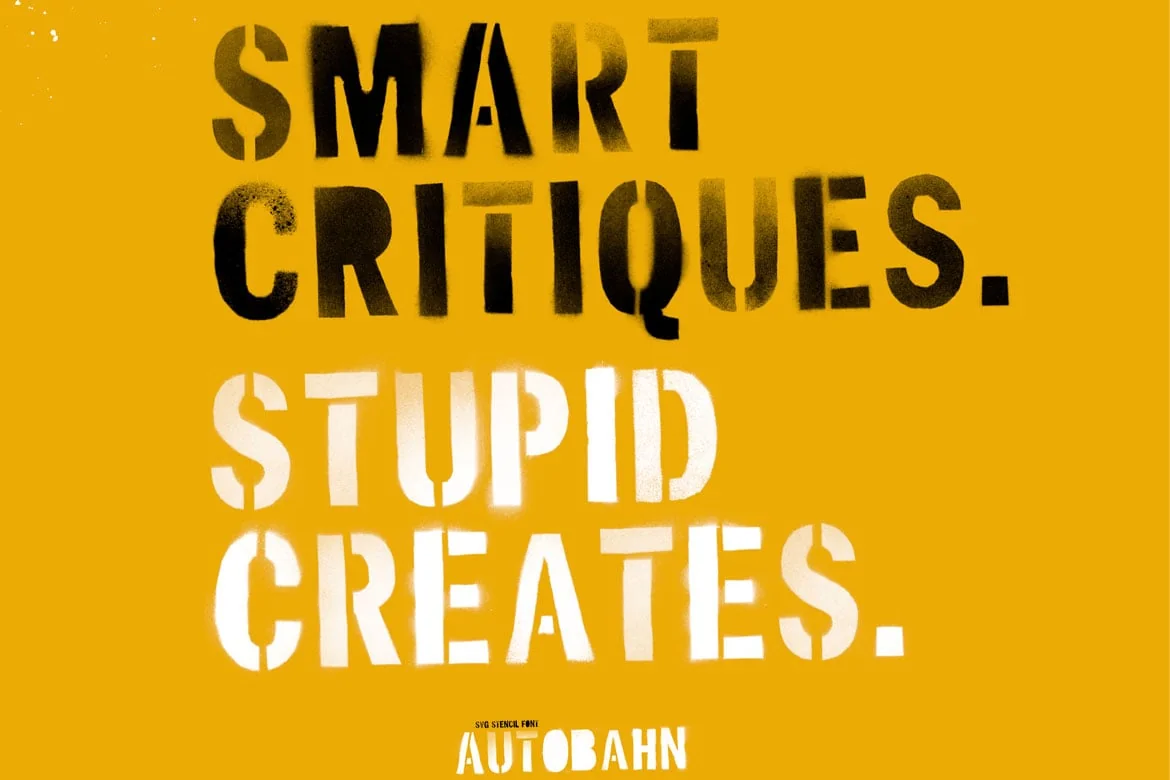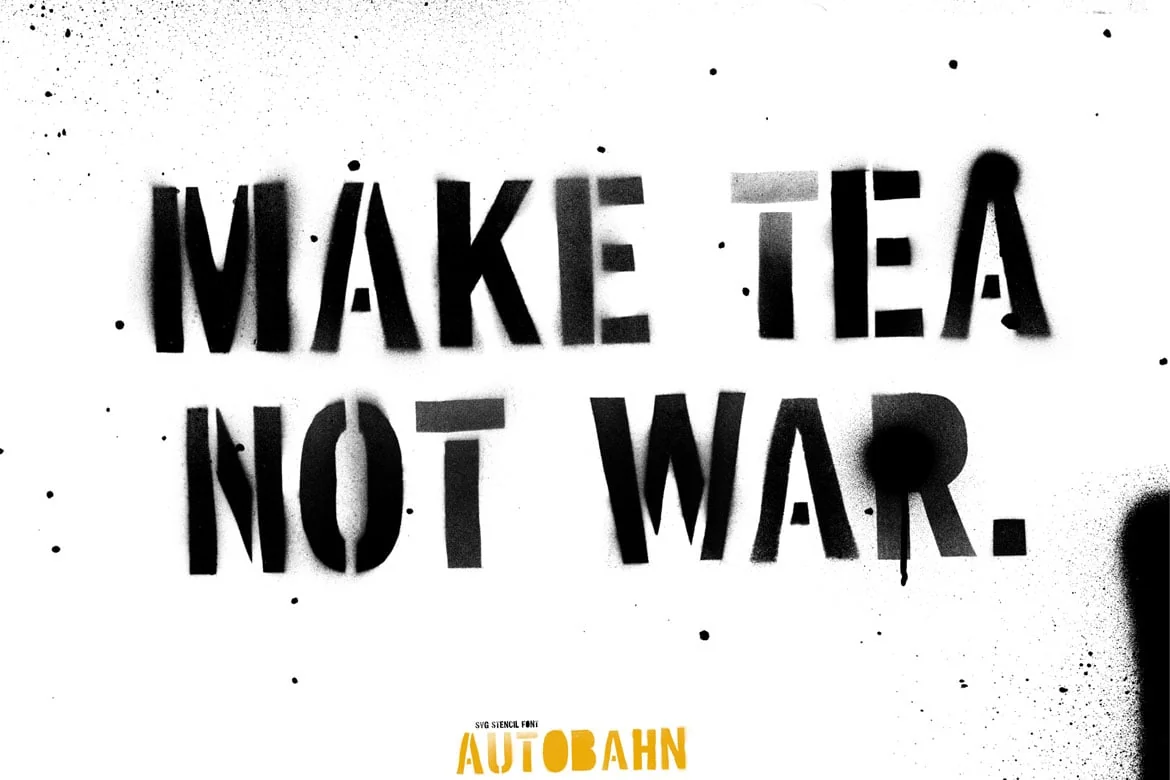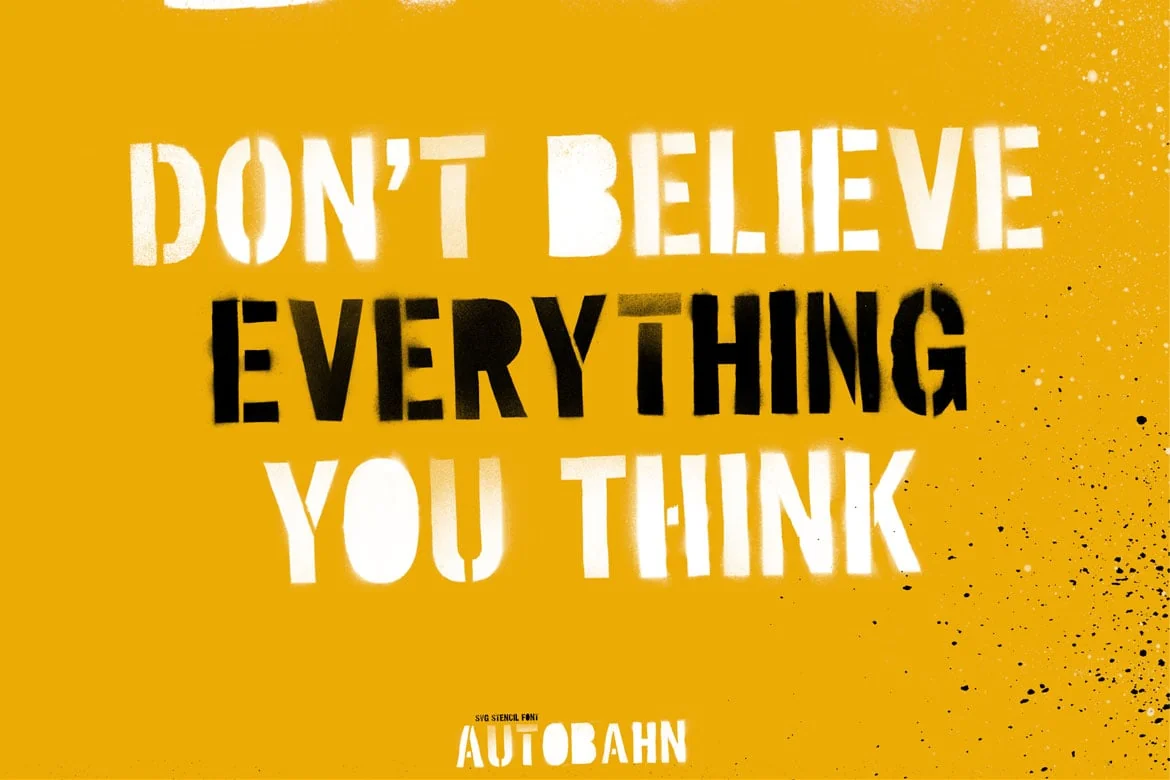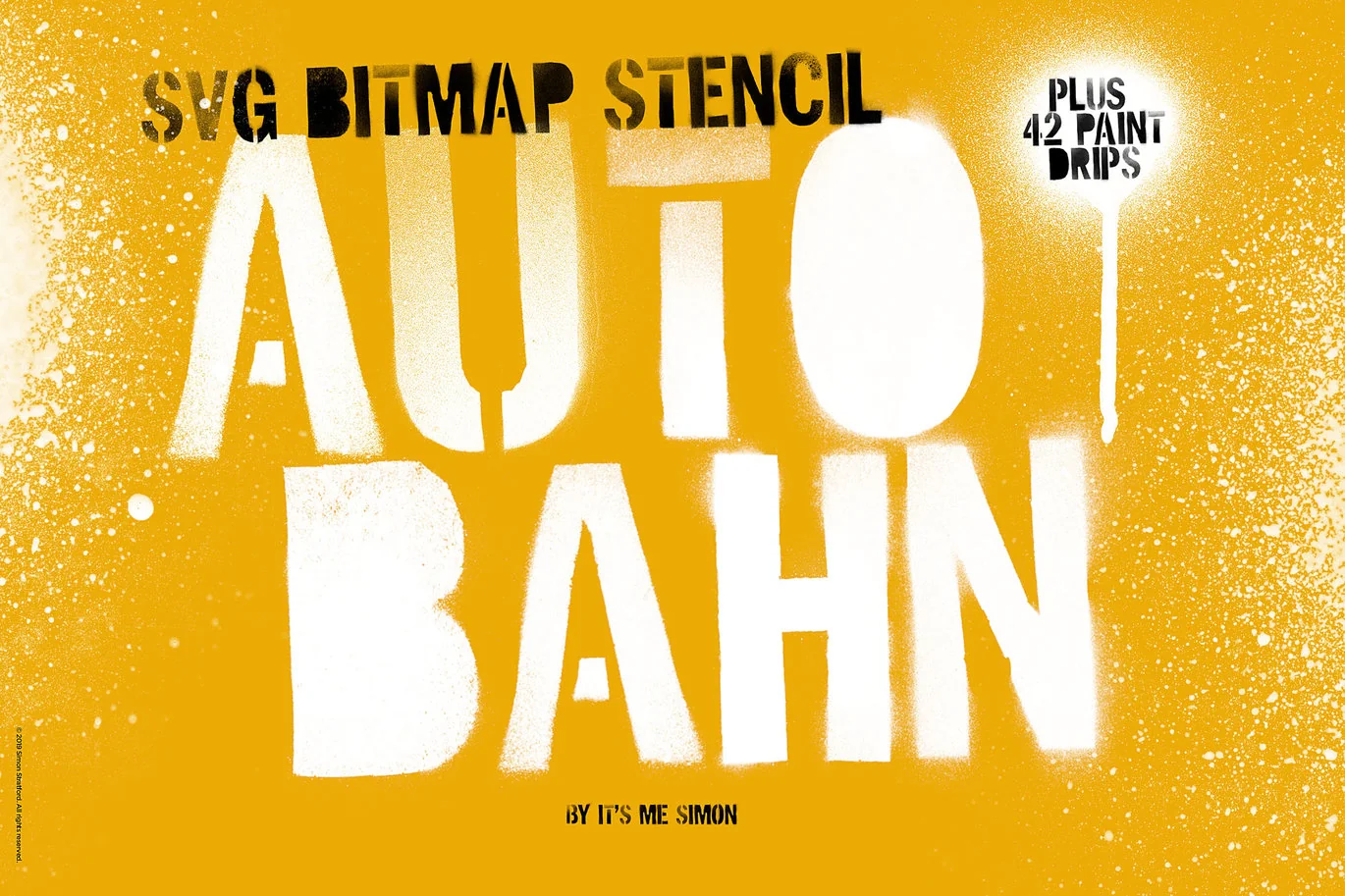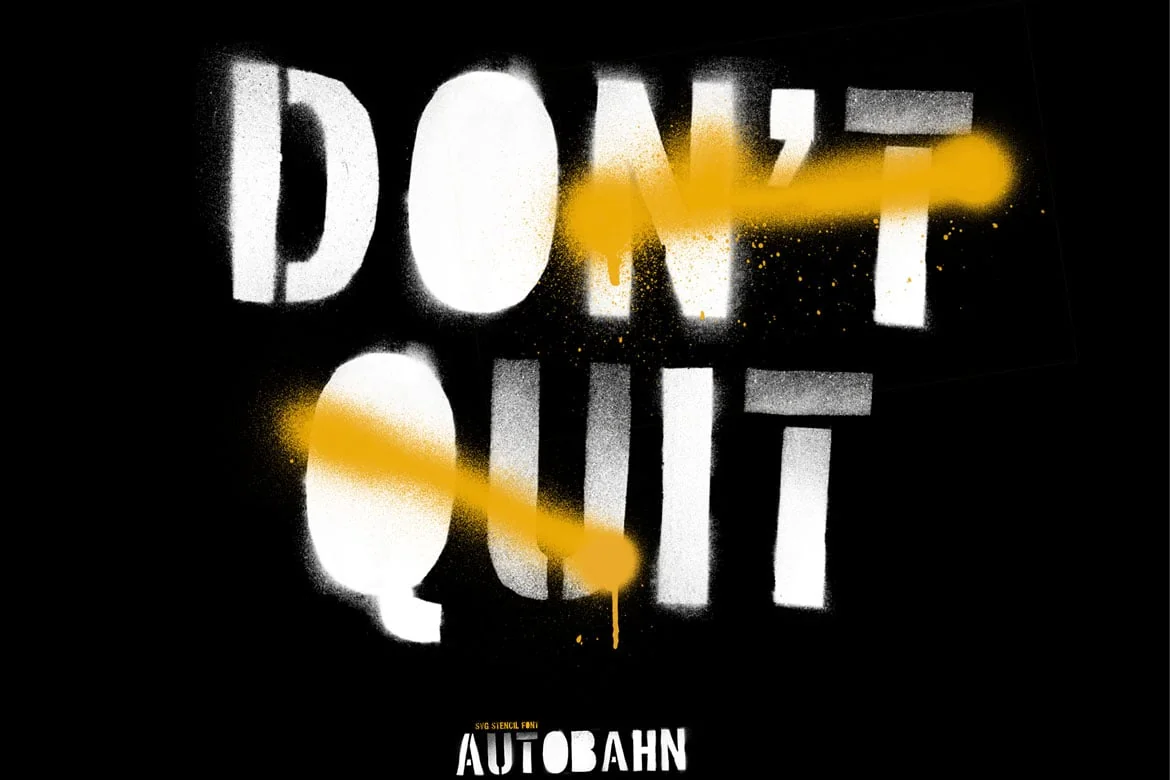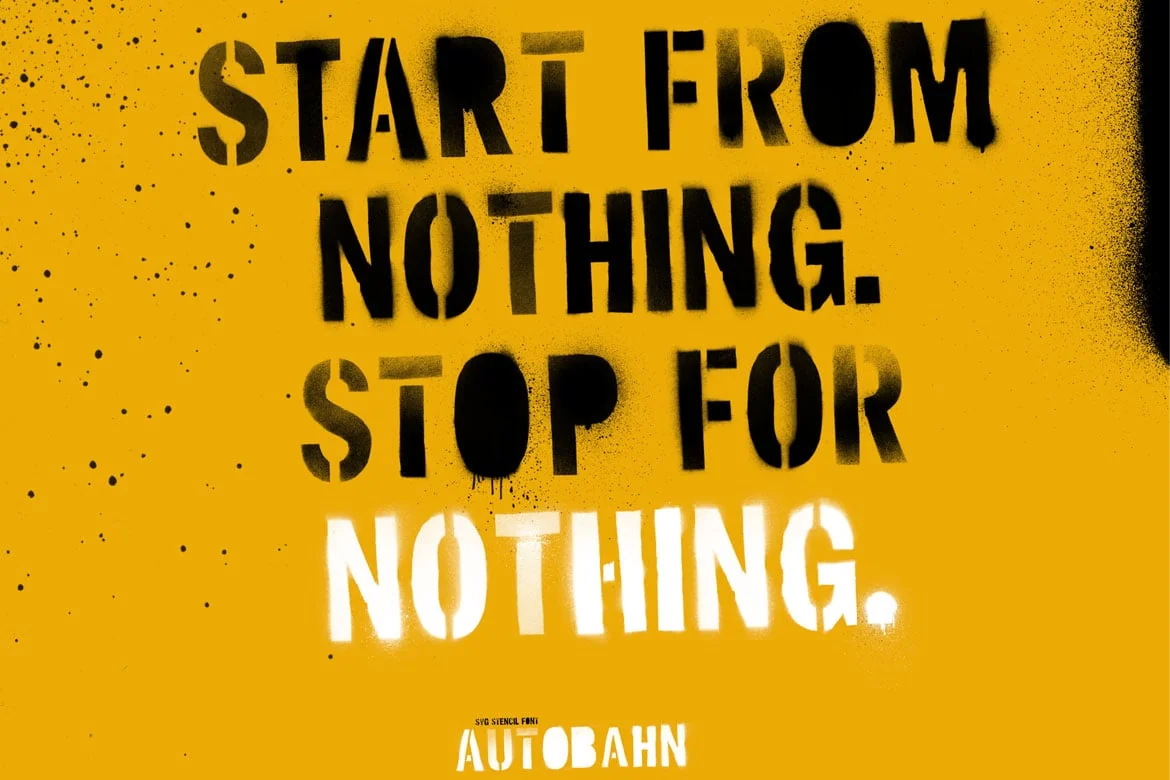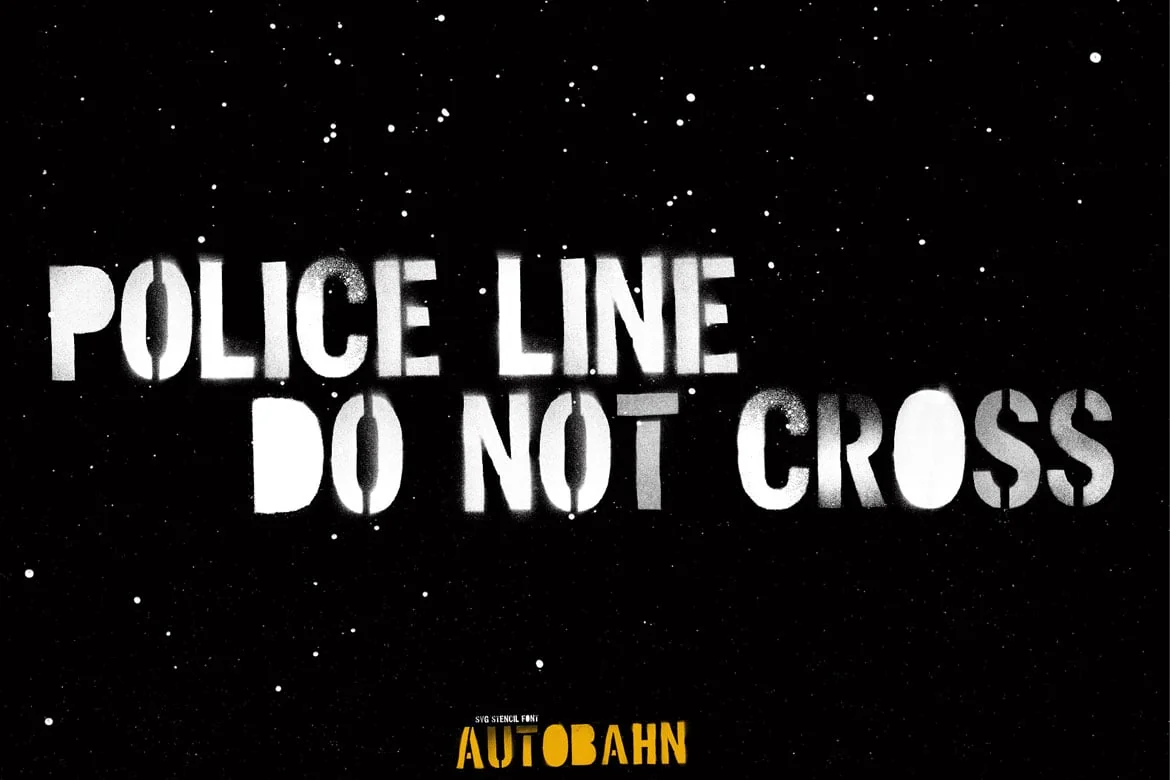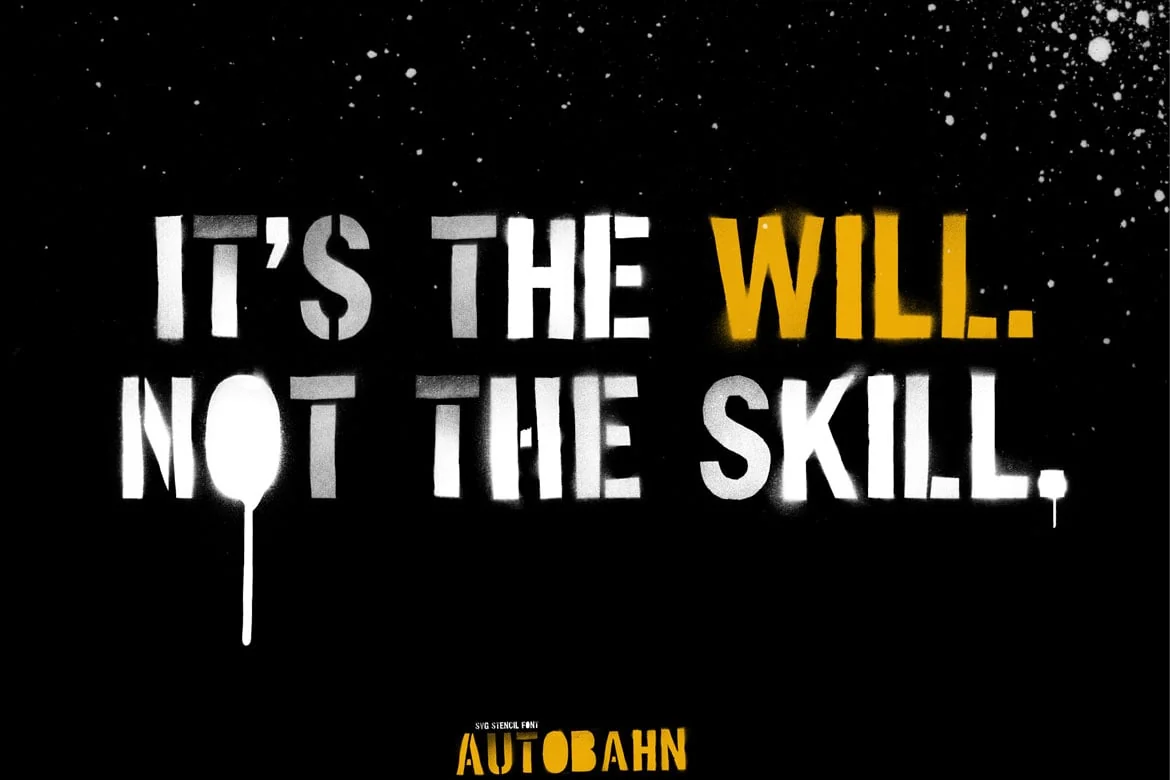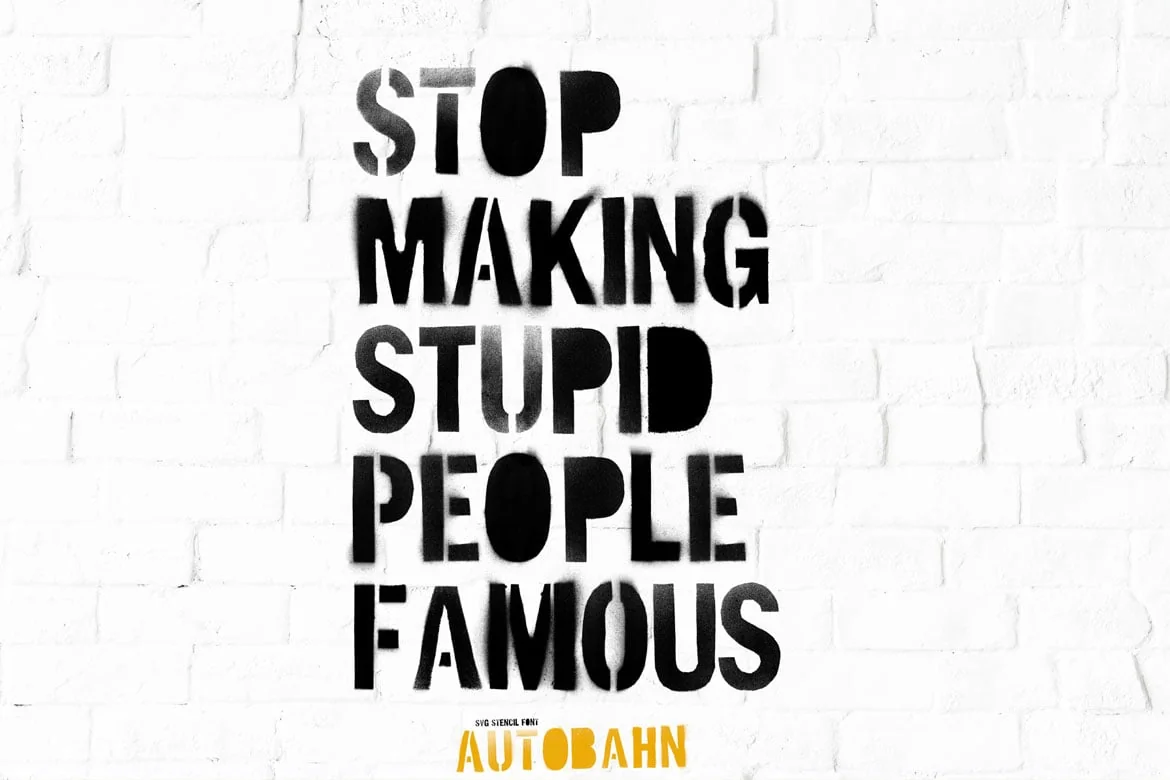
Stencil Autobahn SVG bitmap font
Autobahn is a bold display stencil typeface that has a monumental amount of spray paint detail.
It’s not a traditional vector font. It blows the traditional vector font out of the water. You will not find a more detailed and realistic stencil spray paint font and that’s due to the new OpenType-SVG Bitmap font format.
A traditional vector font as one colour and no transparency. Autobahn has full transparency and thousands of shades of black and grey. The OpenType-SVG Bitmaps technology gives the font so much more detail than the old font format.
Autobahn stencil font
I created Autobahn with real stencils, real spray paint and real paper. All hand cut by my little digits and converted to a typeface.
You’ll struggle to find a more realistic graffiti stencil font.
Bonus spray paint drips
Included in the download are 42 high-resolution real spray paint drips. Use them to add extra detail to your type work or use them for other projects.
Autobahn font usage
Autobahn emulates a real stencil font, so is far from perfect. Some letters have overspray, others have paint splatters, and some look clean and crisp.
Each glyph has its own unique texture. The font is messy and edgy just like it would be in the real world.
The typeface is ideal for getting that urban street style or the military look. Suitable for advertising, posters, packaging, album covers, headlines, book covers and packaging or anything where you want that unique graffiti vibe.
Unicase typeface
Autobahn is a unicase typeface—it has no lowercase letters. Everything is in uppercase. It does contain alternative uppercase letters in the lowercase a-z.
It also has a few alternative glyphs with the counters removed. So with at least two alternatives for each letter, you can get a more random look.